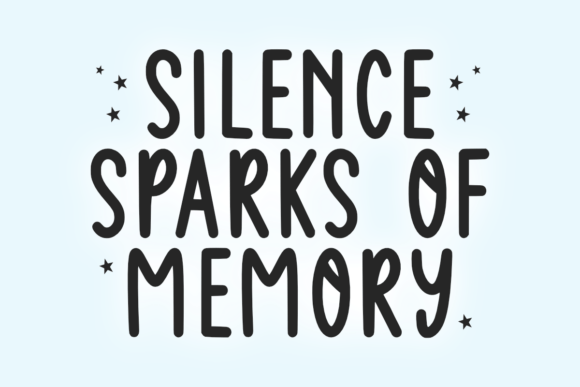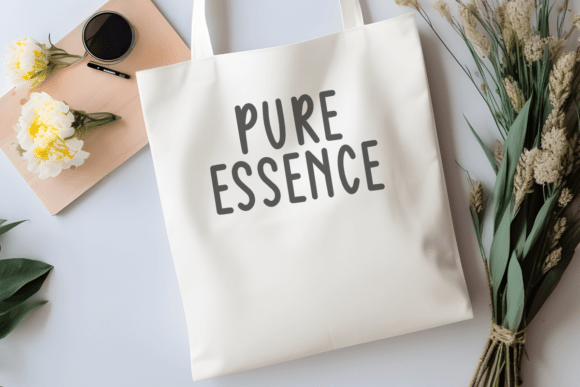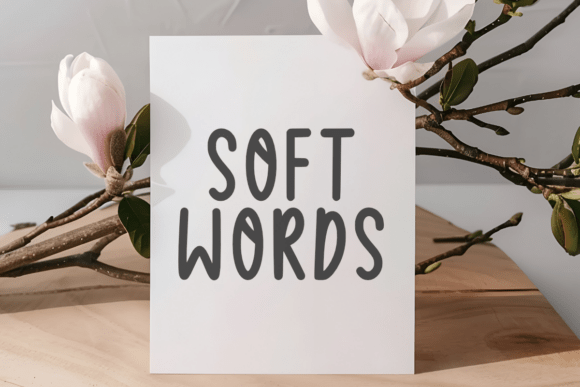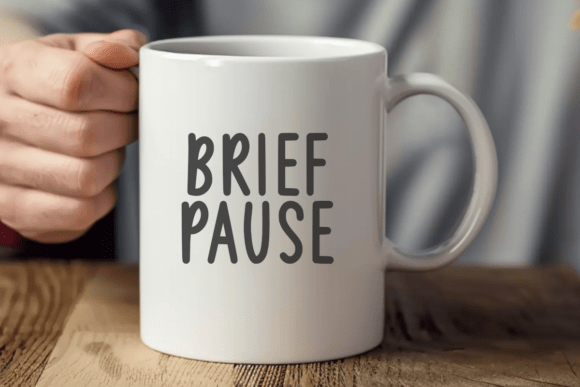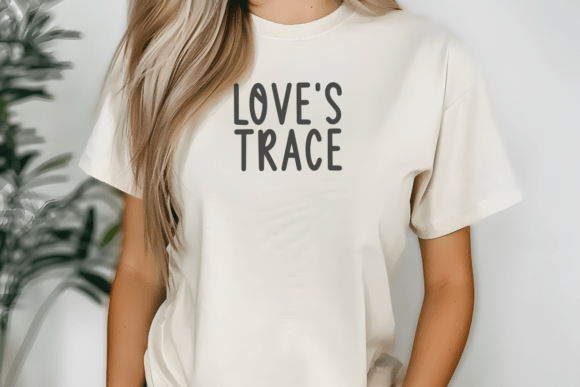
Introduction to Memorial Minimalist Font
As designers, we’ve all been there – staring at a blank page, waiting for inspiration to strike. And then, it happens: a simple yet elegant font catches our eye, and suddenly our creative project is off to a flying start. For many of us, this moment is what makes design so magical. One such font that has captured the hearts of designers worldwide is the Memorial Minimalist Font.
With its clean and charming handwritten style, the Memorial Minimalist Font brings a touch of warmth and personality to any design. Its modern simplicity makes it the perfect choice for a wide range of creative projects, from children’s books and cards to branding and more. What’s more, this versatile font is available for free download, making it an invaluable design resource for designers of all levels.
Key Features of Memorial Minimalist Font
- High-quality design: Memorial Minimalist Font is crafted with attention to detail, making it perfect for creative projects that demand a professional touch.
- Unique characteristics: The font’s minimalist design and subtle nuances make it an excellent choice for projects that require a touch of elegance and sophistication.
- Perfect for various uses: Memorial Minimalist Font is suitable for a wide range of applications, including business cards, brochures, and website headers.
Honest Review: Memorial Minimalist Font
As a designer, I was excited to dive into the Memorial Minimalist Font and see if it would be a valuable addition to my design resource library. After exploring the font, here are my thoughts.
- ✨ High quality design: The Memorial Minimalist Font has a clean and elegant aesthetic that makes it perfect for a wide range of creative projects.
- ⚠️ Limited character set: While the font is beautiful, it’s limited in terms of character set, which may make it less practical for certain design applications.
- ⚠️ Not suitable for large body text: The font is best suited for headlines and titles, as the text can become difficult to read when used for large blocks of body text.
Overall, the Memorial Minimalist Font is a great design resource for designers who are looking for a high-quality, elegant font to add to their creative projects. While it has some limitations, I think it’s a valuable addition to any design library.
Some tips for getting the most out of the Memorial Minimalist Font include using it in conjunction with a transparent background to create a clean and modern look. You can also use it to add a touch of elegance to your creative project. Common use cases for this font include designing wedding invitations, creating memorial plaques, and adding typography to your artwork.